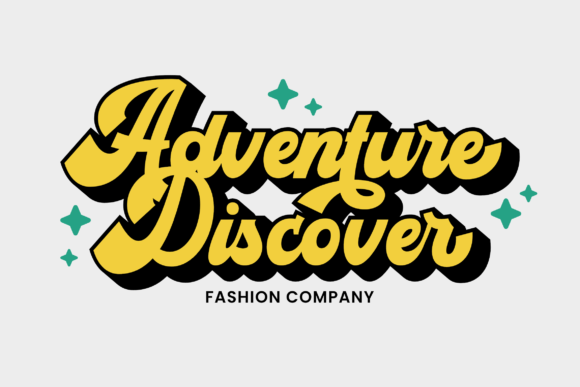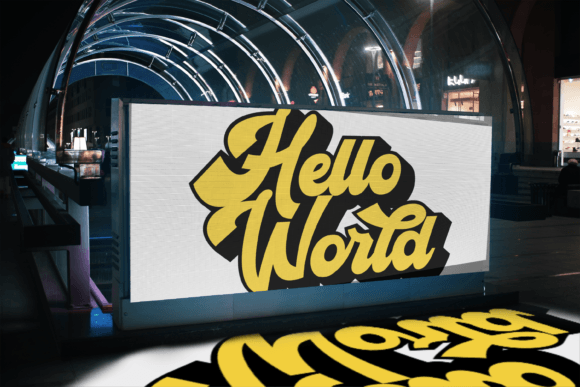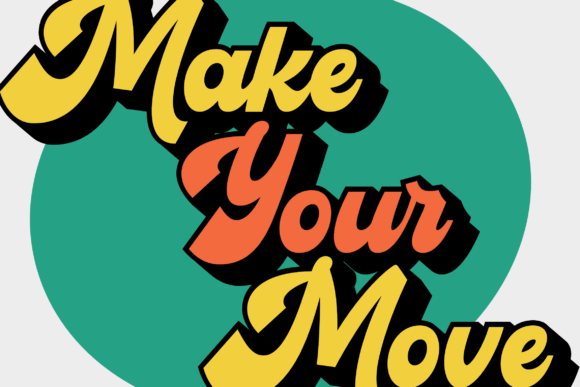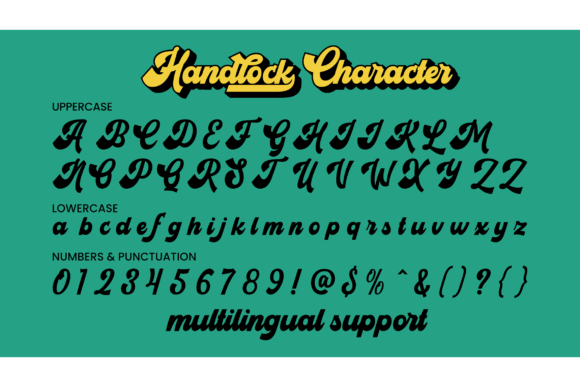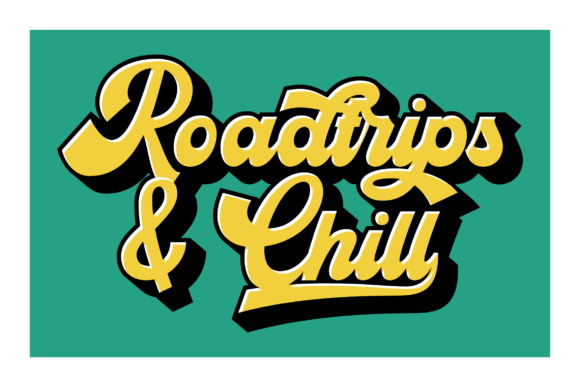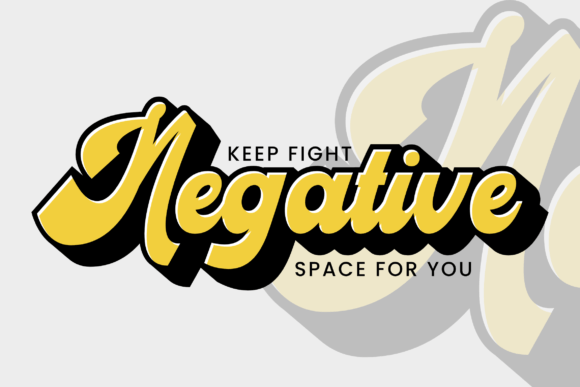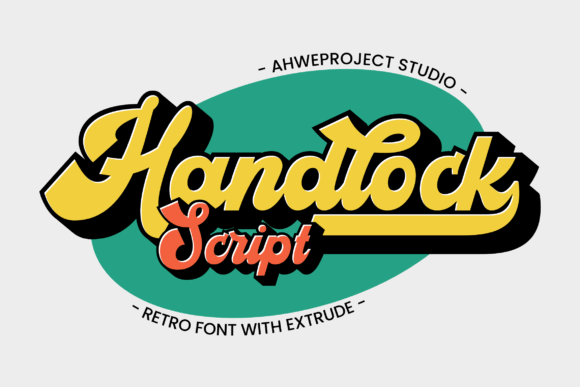
Introducing Handlock Font: The Ultimate Retro-Styled Handwritten Font for Designers
Are you tired of using the same old fonts in your designs? Do you want to add a touch of nostalgia and personality to your work? Look no further than Handlock Font, a bold and retro-styled handwritten font that’s sure to impress. In this article, we’ll dive into the features and benefits of Handlock Font, and explore how it can elevate your designs to the next level.
A Bold and Confident Font
Handlock Font is a bold and confident font that’s perfect for designers who want to make a statement. Its strong and dynamic letterforms exude a sense of confidence and authority, making it ideal for use in a variety of design projects. Whether you’re creating a vintage-inspired poster, a sticker, or a social media post, Handlock Font is sure to grab attention and leave a lasting impression.
Retro-Styled with a Nostalgic Feel
One of the standout features of Handlock Font is its retro-styled aesthetic. With its bold lines, curvaceous letterforms, and nostalgic feel, this font is perfect for designers who want to add a touch of vintage charm to their work. Imagine using Handlock Font to create a poster that looks like it was plucked straight from the 1950s, or a sticker that has the same feel as a classic vinyl record. The possibilities are endless!
Another great feature of Handlock Font is that it’s PUA (Private Use Area) encoded. This means that you can access all of the glyphs and swashes with ease, giving you even more creative freedom and flexibility. With PUA encoding, you can easily insert special characters, ligatures, and other unique elements into your designs, taking them to the next level.
So, what can you use Handlock Font for? The answer is: almost anything! This versatile font is perfect for a wide range of design projects, including:
- Vintage-inspired posters and flyers
- Stickers and labels
- Apparel and merchandise
Whether you’re a designer, crafty DIY enthusiast, or simply someone who loves to create, Handlock Font is a great addition to your font library.
Tips for Using Handlock Font
Here are a few tips for getting the most out of Handlock Font:
- Use Handlock Font in combination with other fonts to create a unique and eye-catching look
- Don’t be afraid to get creative and try new things – Handlock Font is a versatile font that can handle a lot of different design styles and approaches
In conclusion, Handlock Font is a bold, retro-styled handwritten font that’s perfect for designers who want to add a touch of nostalgia and personality to their work. With its strong and dynamic letterforms, PUA encoding, and versatility, this font is sure to become a favorite in your font library. So why wait? Download Handlock Font today and start creating designs that are truly one-of-a-kind!
Whether you’re a seasoned designer or just starting out, Handlock Font is a great choice for anyone who wants to add a little extra something to their designs. So go ahead, get creative, and see what amazing things you can create with Handlock Font!